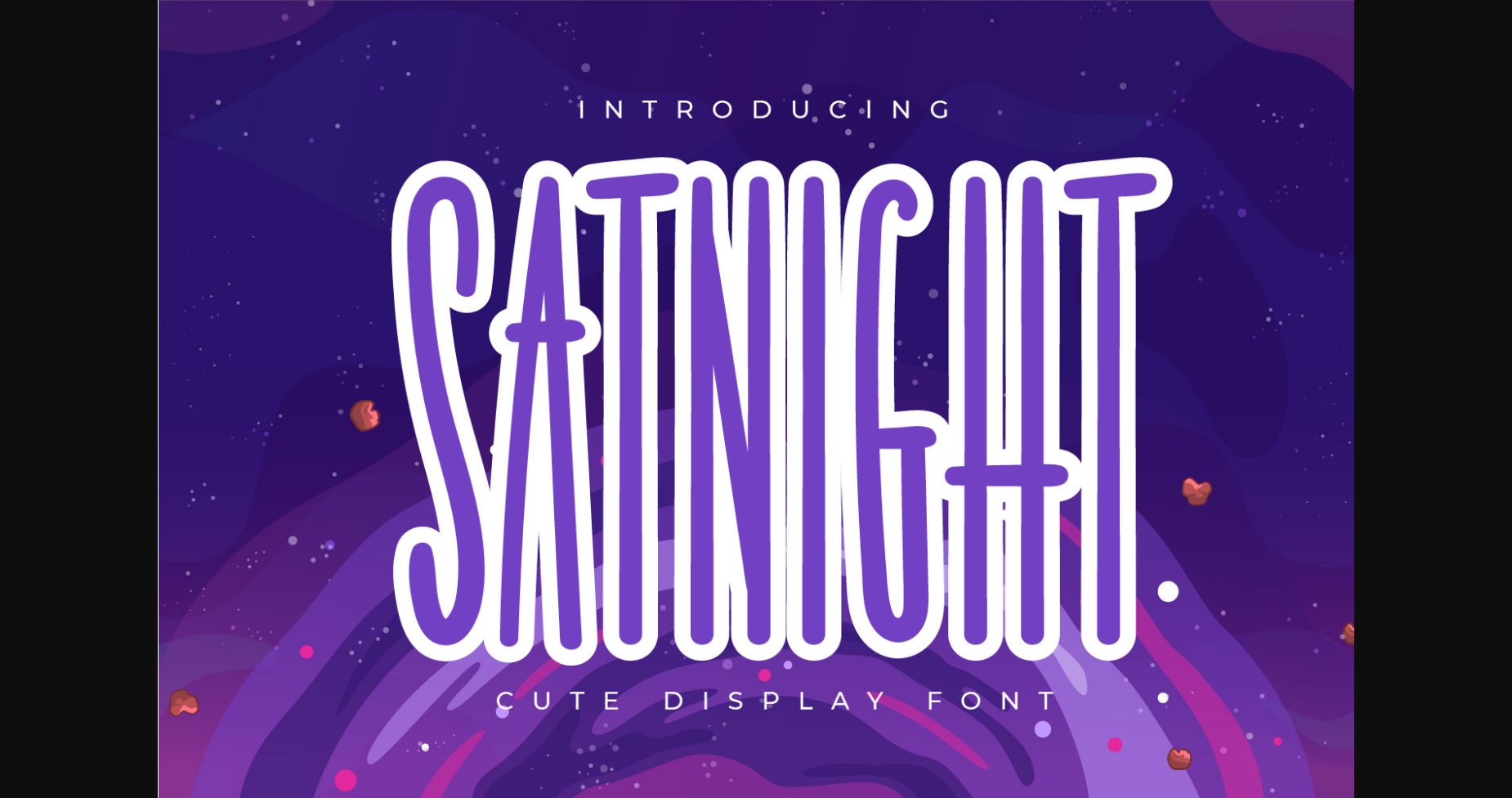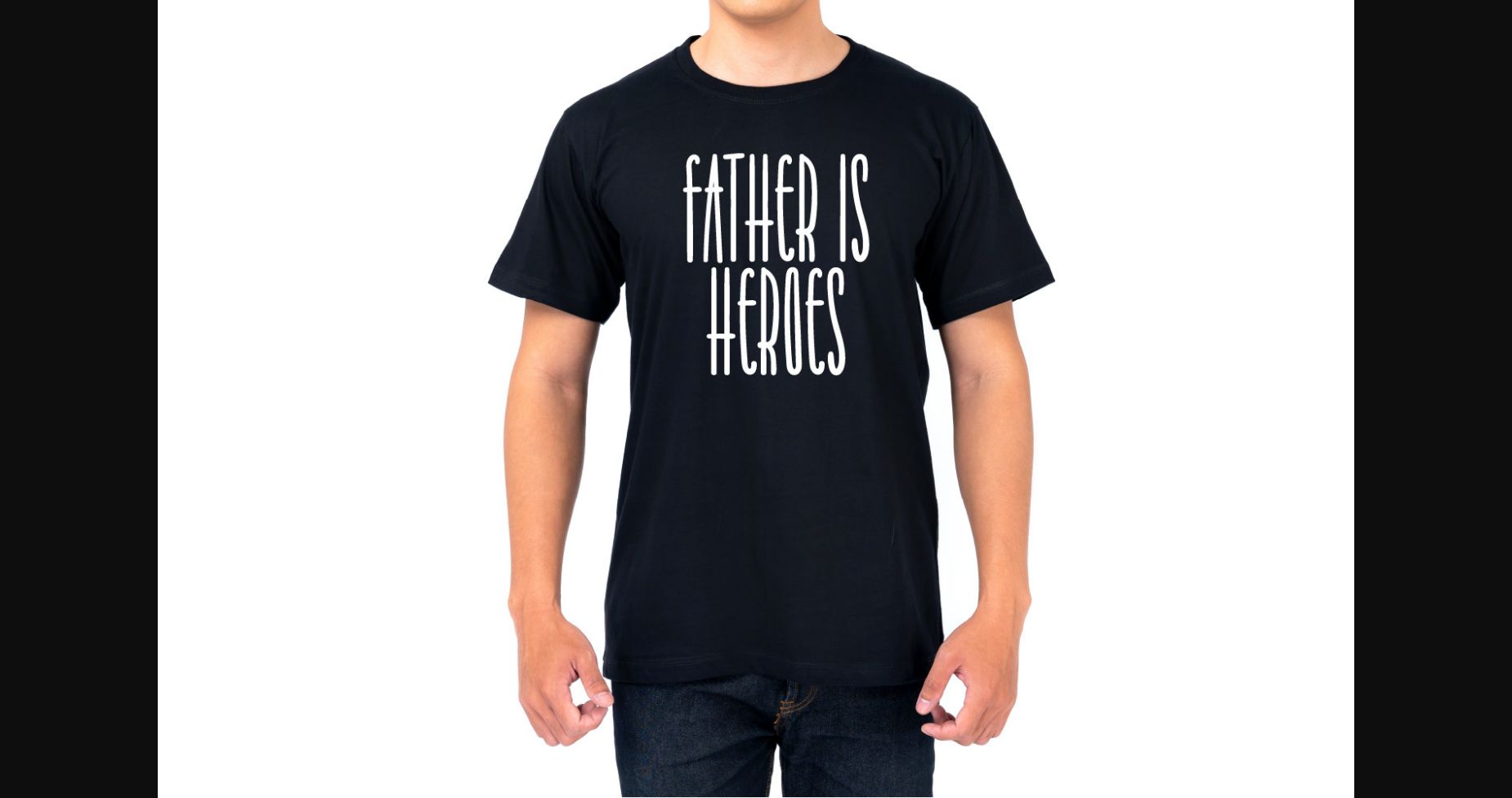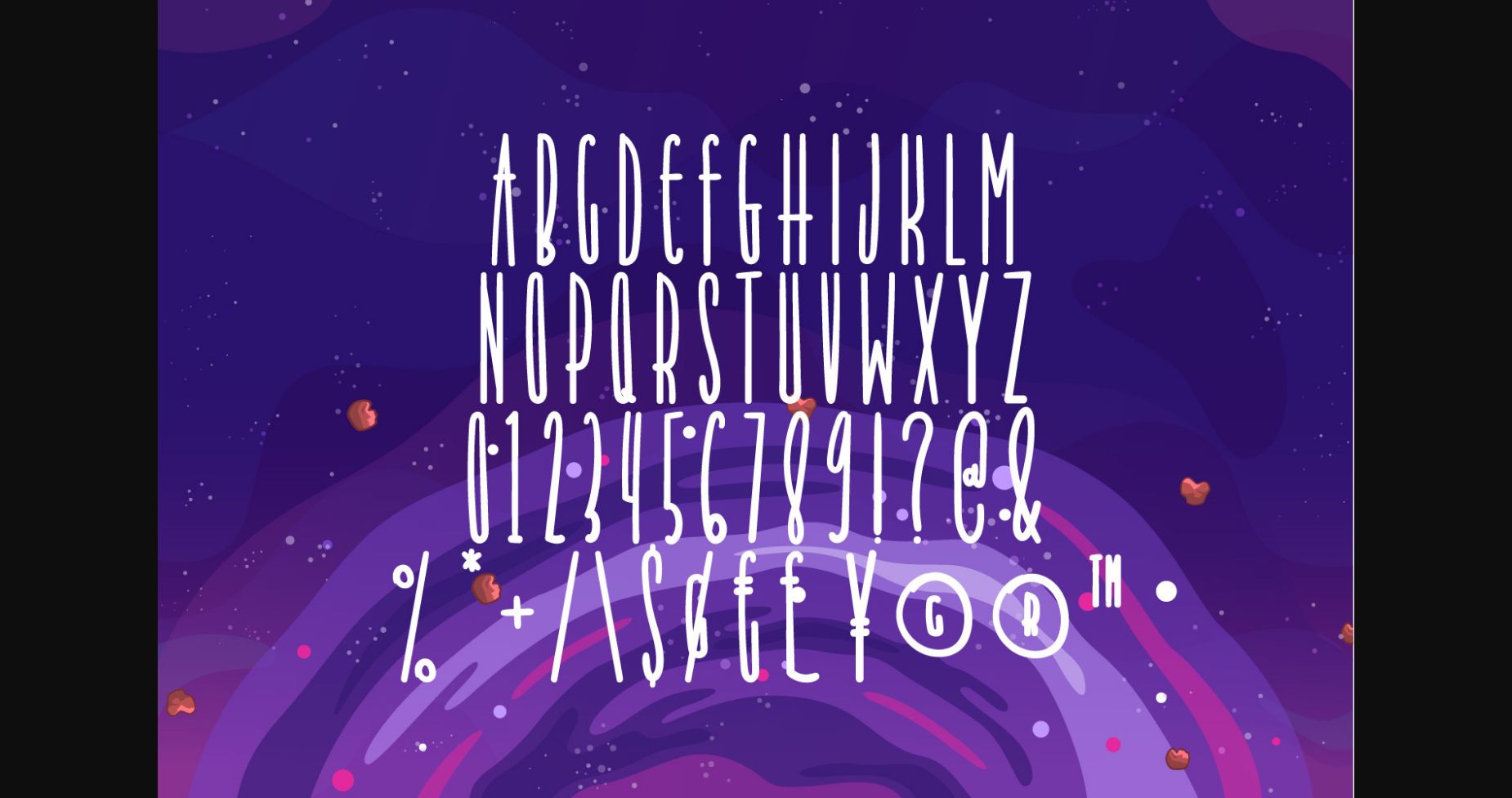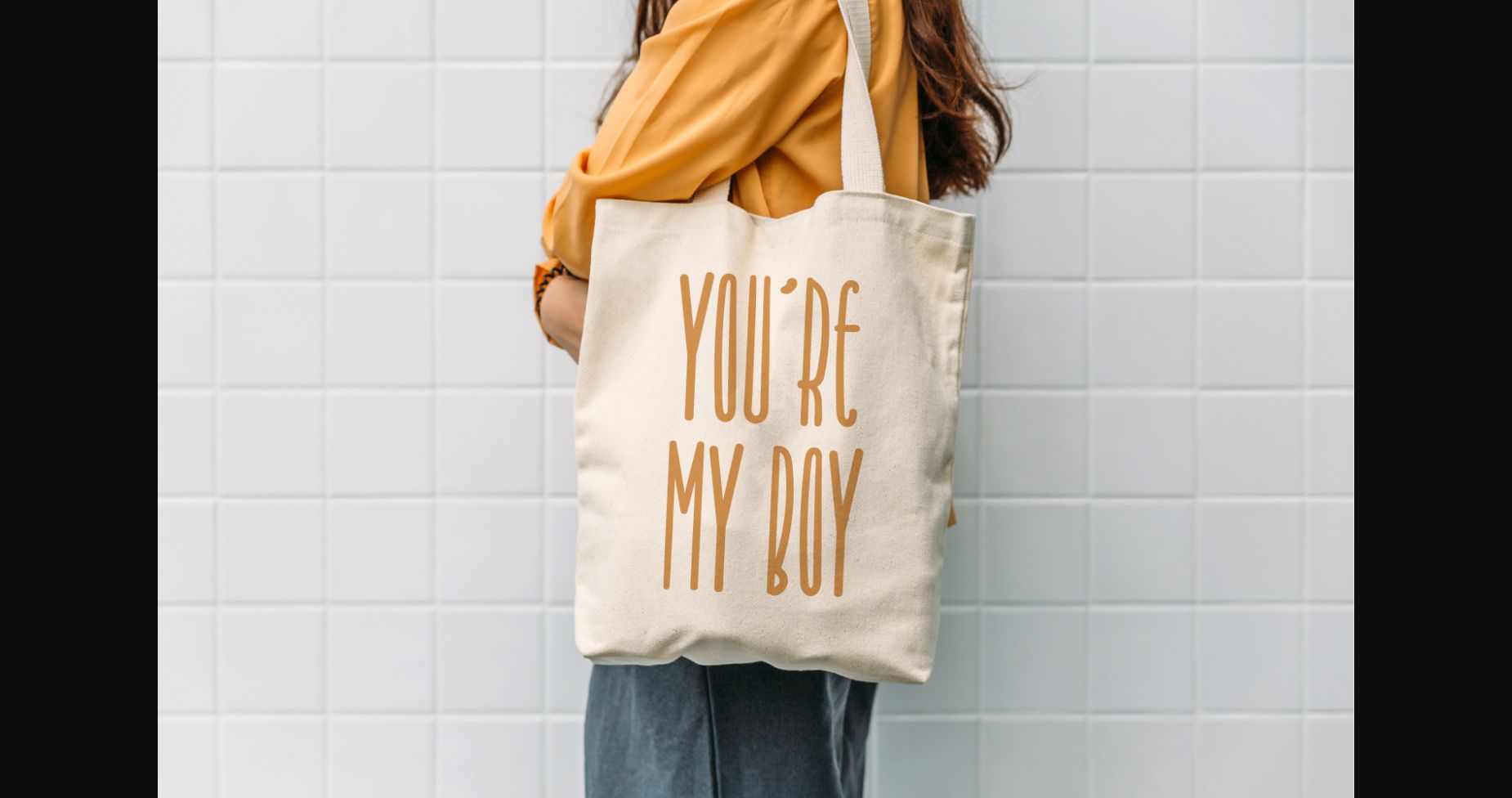
About Satnight Font
Satnight – Cute Sans Serif Font.
Satnight is a quirky and cute sans serif font that fits perfectly into anything. Its casual charm makes it look very down-to-earth, easy to read, and, in the end, very versatile. Add this beautiful font to your every creative idea.
This font is perfect for quotes, shirt designs, websites, branding, children’s designs, blogs, logos, invitations, and more!
Satnight is a quirky and cute sans serif font that fits perfectly into anything. Its casual charm makes it look very down-to-earth, easy to read, and, in the end, very versatile. Add this beautiful font to your every creative idea.
This font is perfect for quotes, shirt designs, websites, branding, children’s designs, blogs, logos, invitations, and more!